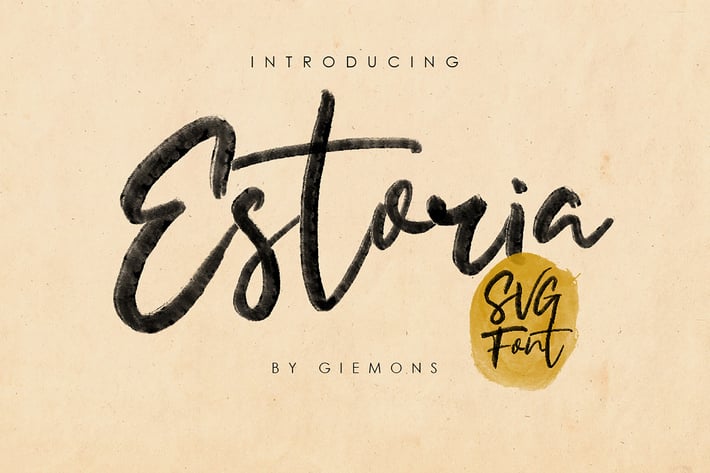
Estoria Script - SVG Font
a Estoria Script is unique font with Highres Open Type SVG Font. Can make it easier to convey the message in your design. Use for awesome wedding, display, labeling, clothing, movie sceen, poster, movie title, gigs, album covers, logos, and much more.